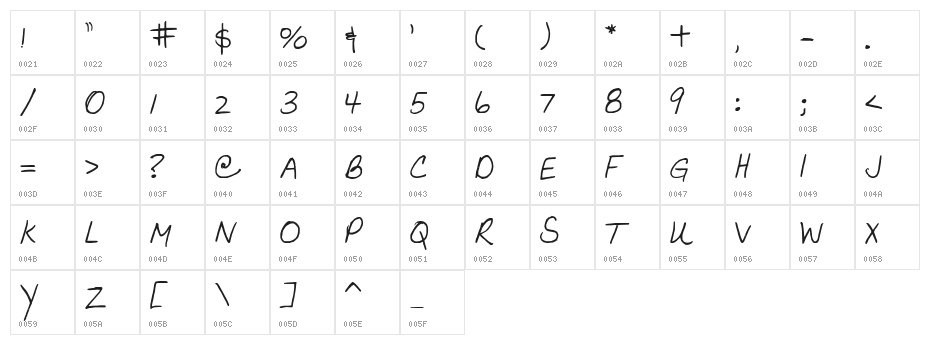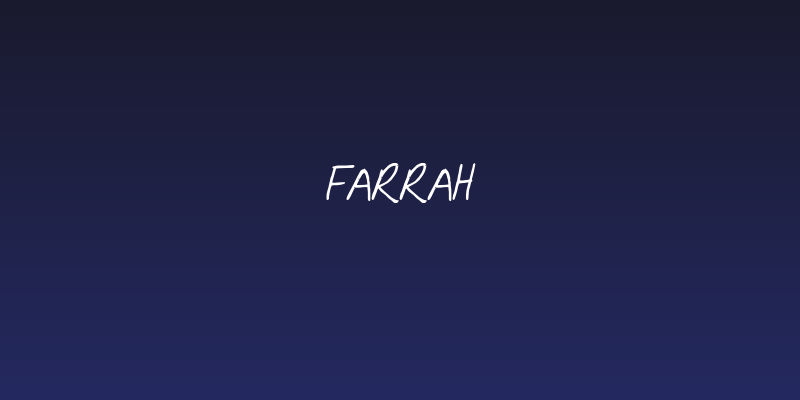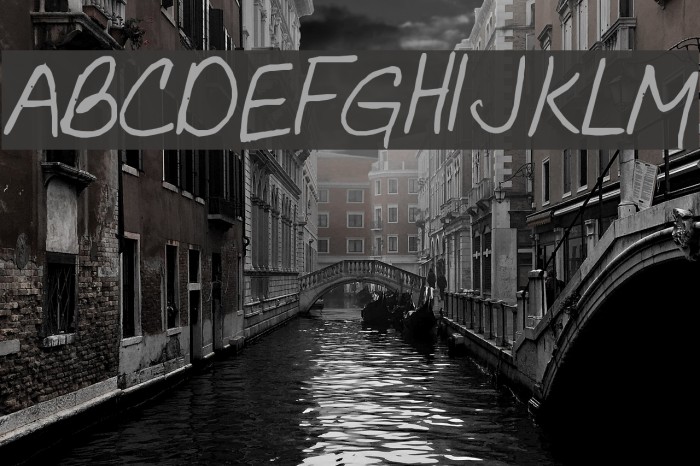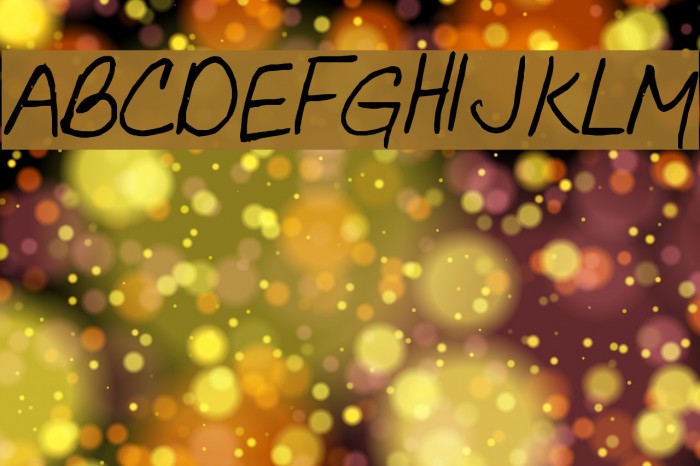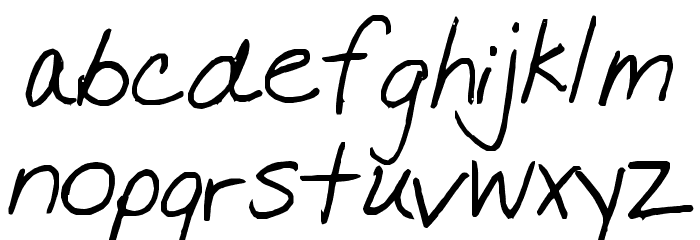
Farrah Font
Farrah Description
This font exhibits a casual, handwritten style with a playful and informal appearance. The letters are slightly slanted, giving a dynamic and lively feel. The strokes are uneven, mimicking the natural flow of handwriting, which adds a personal touch. The uppercase and lowercase letters maintain a consistent style, with rounded edges and smooth curves. The numerals and special characters follow the same handwritten aesthetic, ensuring coherence throughout the character set. This font is ideal for projects that require a personal, approachable, and friendly vibe.
| Overall Style | Casual, Playful |
| Use Case | Headlines, Informal text, Personal projects |
| Proposed Projects | Greeting cards, personal notes, informal invitations, children's books, and social media graphics. |